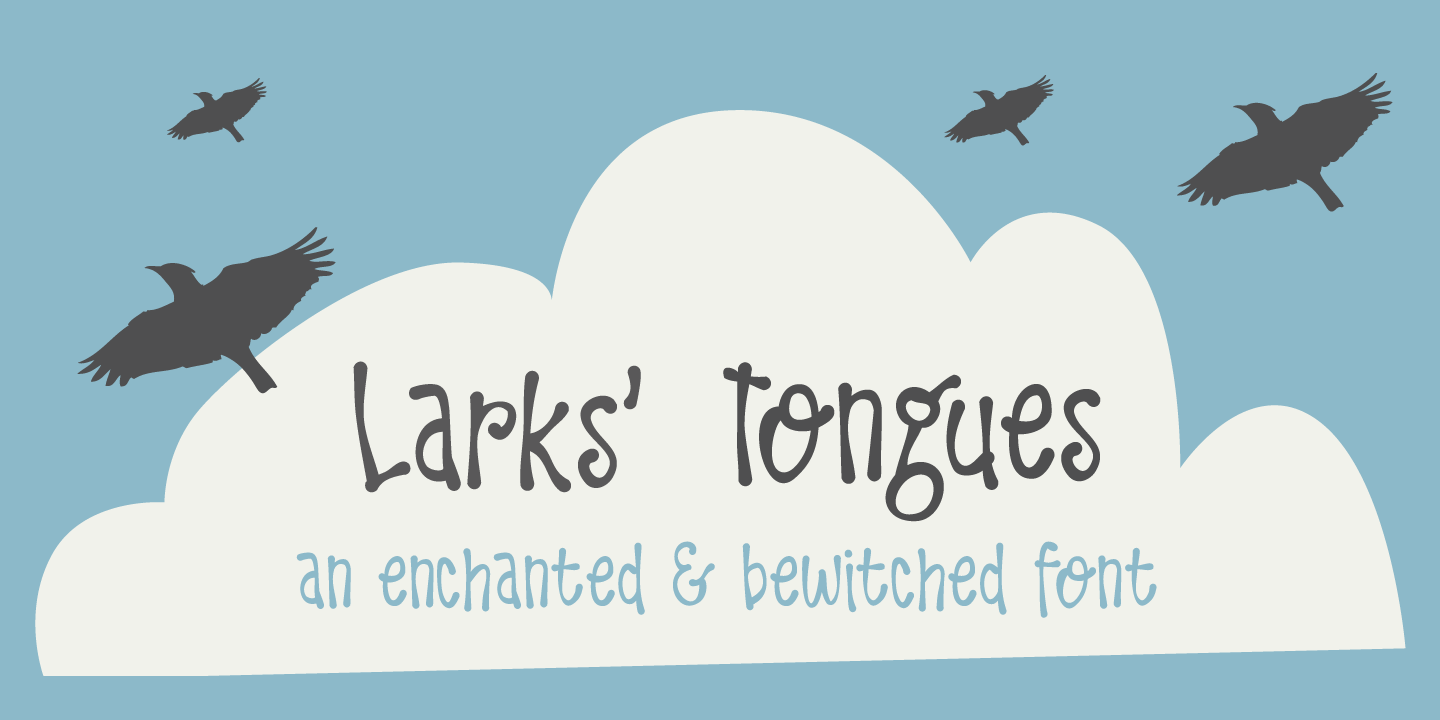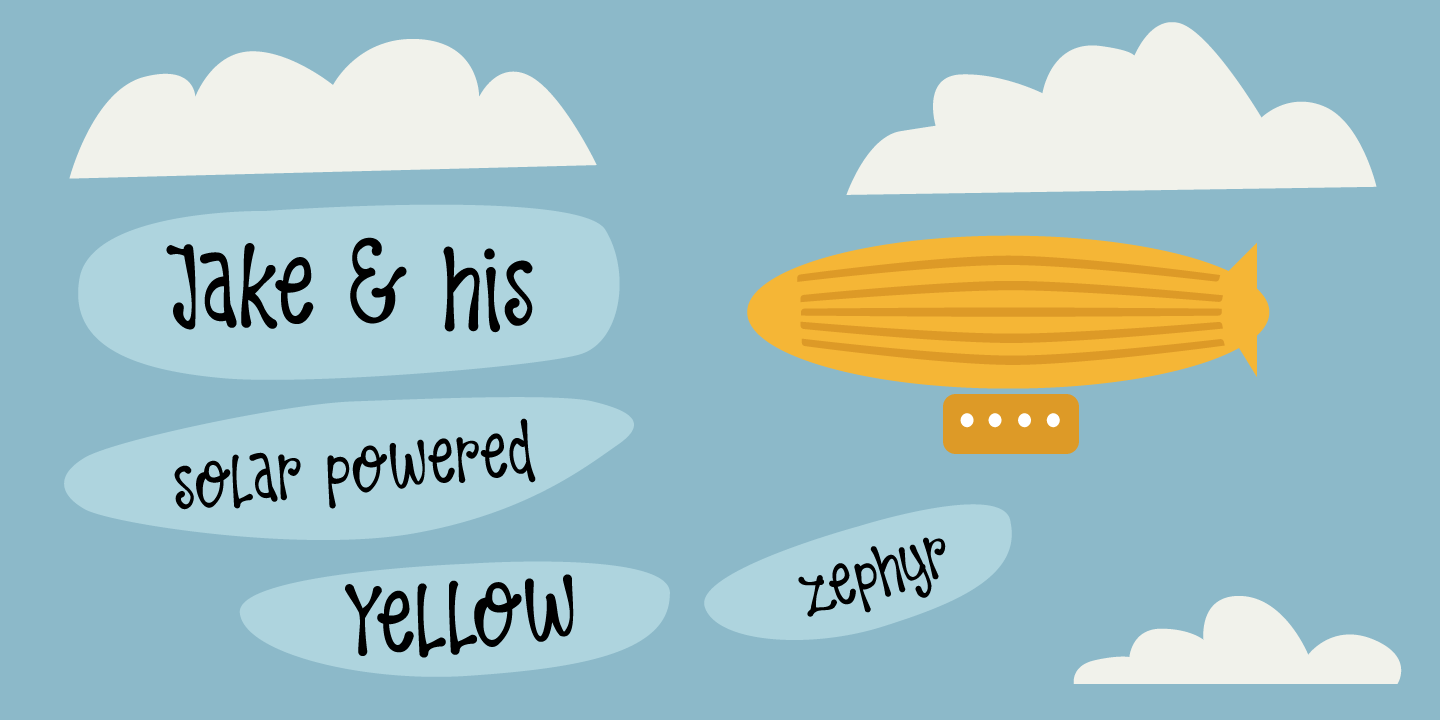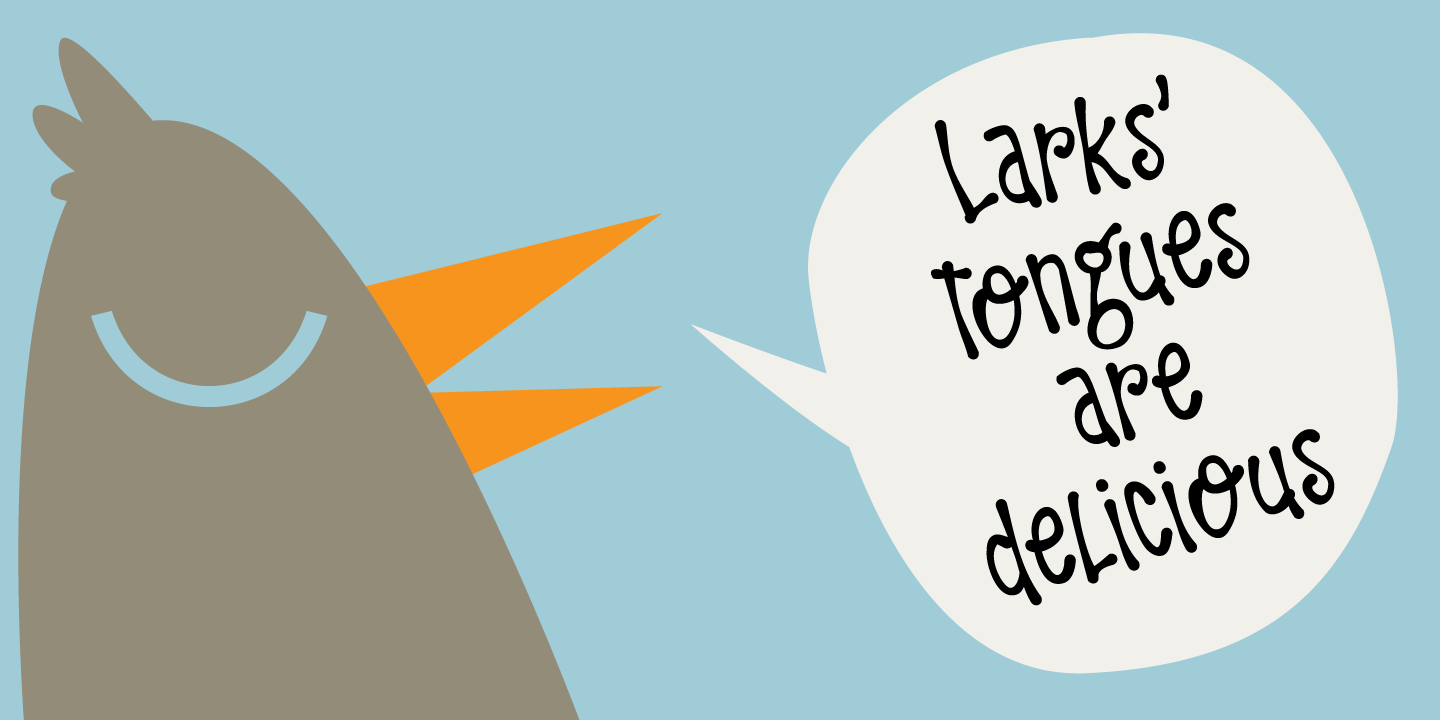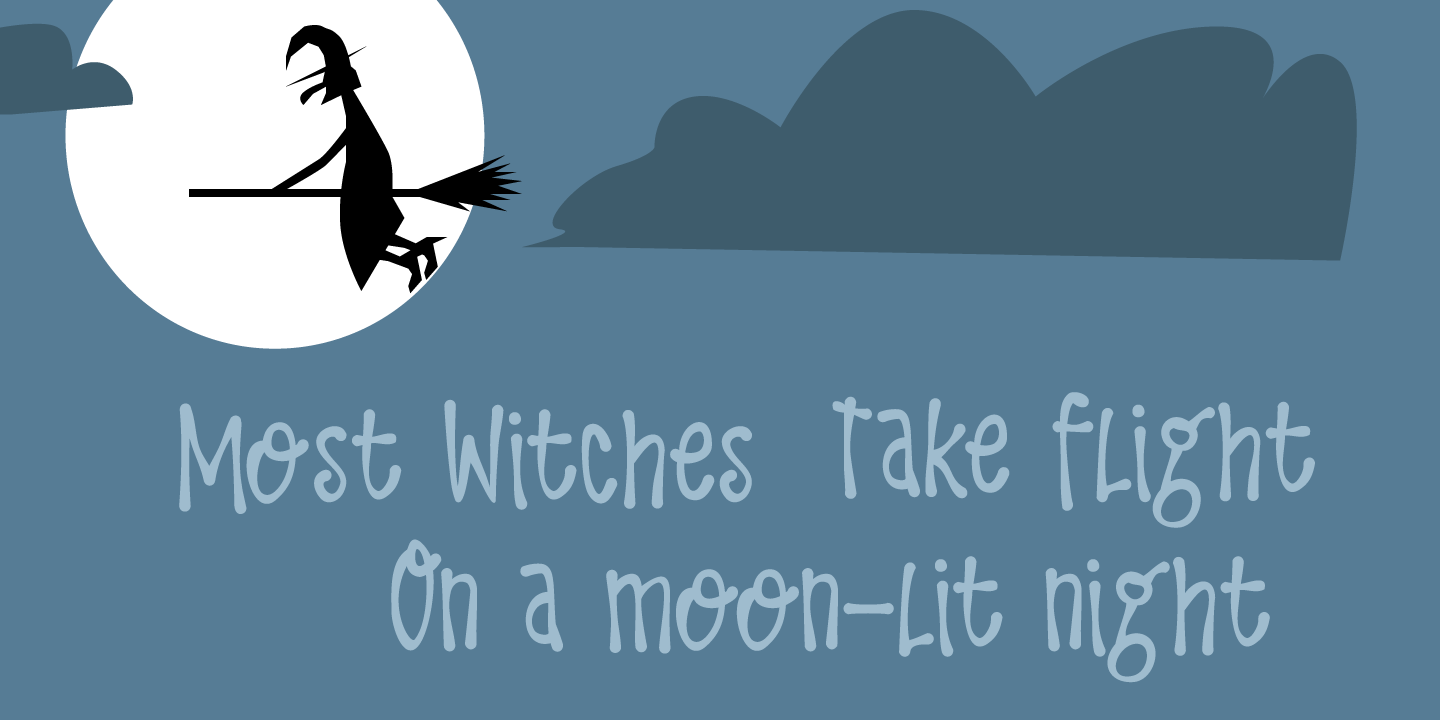
Larks Tongues
About Larks Tongues
Larks Tongues in Aspic is the fifth studio album (released in 1973) by the English progressive rock group King Crimson. I have always liked this name, as it reminded me of old stories in which witches threw all kinds of weird ingredients (larks? tongues,…